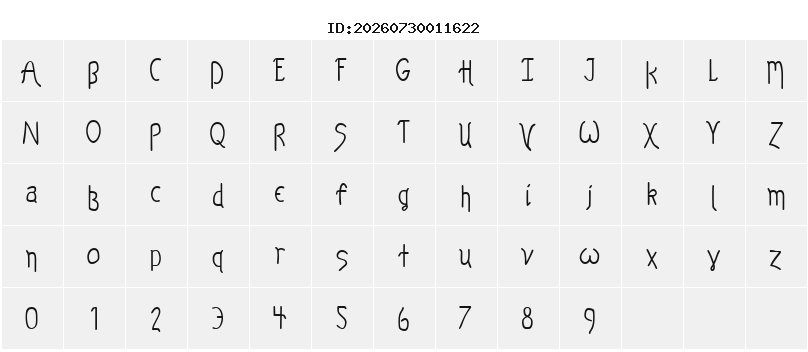
Kelp Ban Preview
• Designer: Ben McGehee
About Kelp Ban.ttf
Kelp Ban.ttf is a modern, elegant sans-serif font designed for ultimate readability and visual harmony. Perfect for branding, headlines, web design, and print materials.